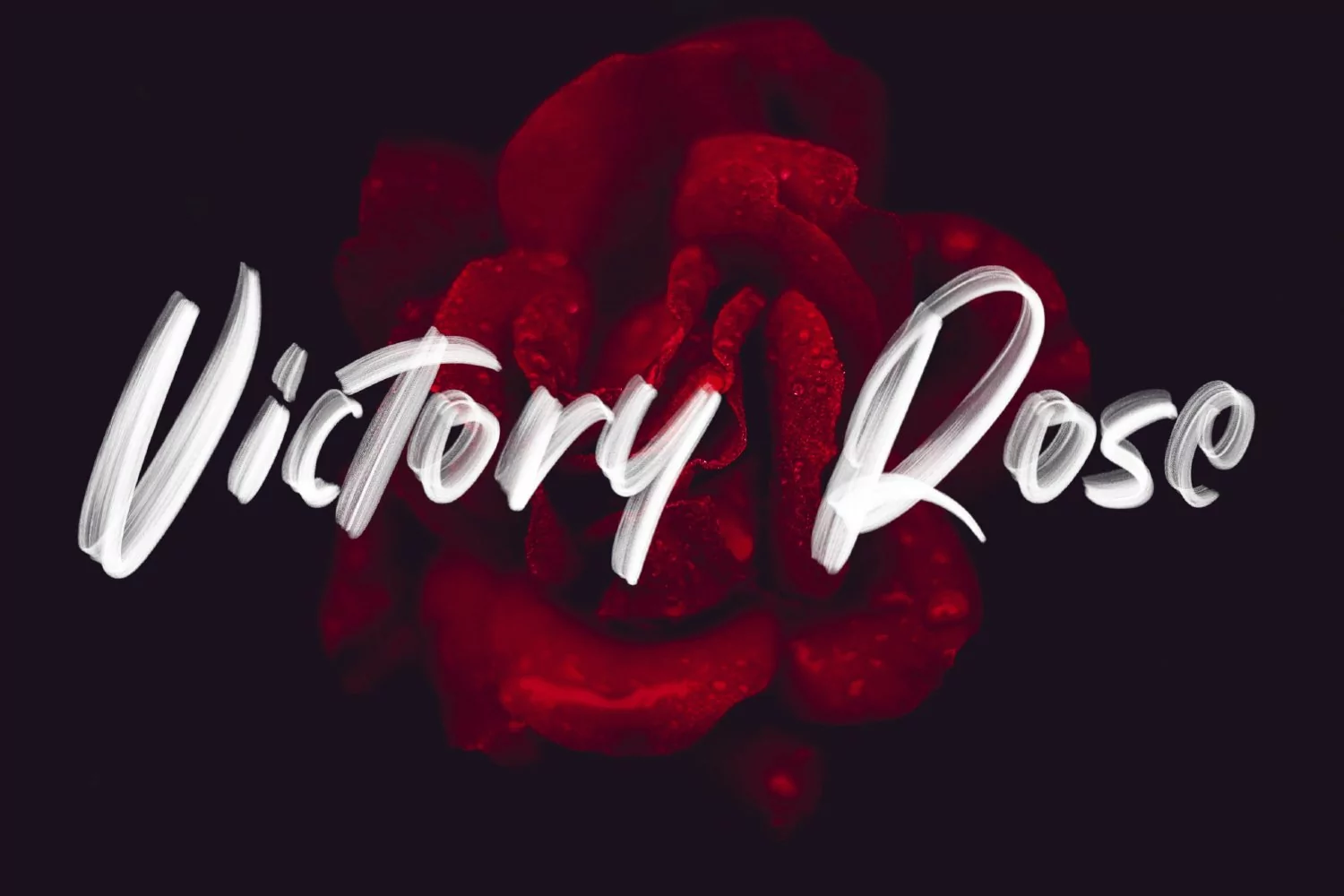
Avextur is an SVG handwritten font. With brush stroke, slanted and fun character with a bit of ligatures and Extra Sans Serif. To give you an extra creative work. Avextur SVG font support multilingual more than 100+ language. This font is good for logo design, Social media, Movie Titles, Books Titles, a short text even a long text letter and good for your secondary text font with sans or serif. Make a stunning work with Avextur SVG font.